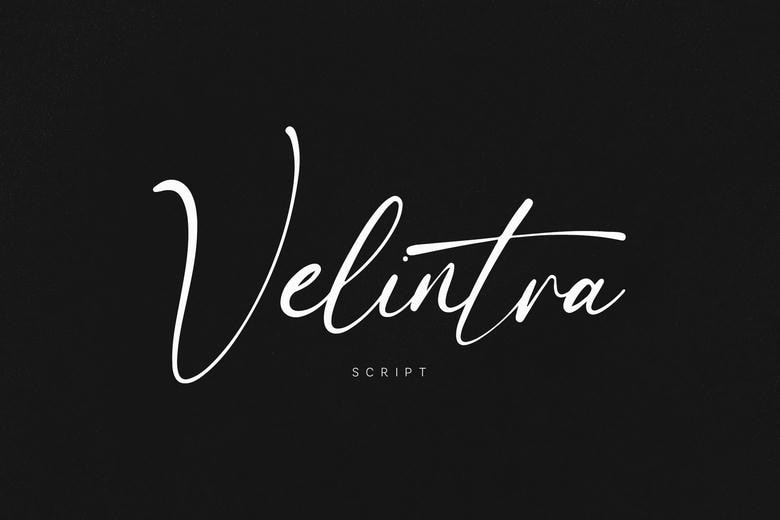
Velintra Font
Velintra is a contemporary typeface whose strokes are smooth and flowing, and the letterforms are balanced. It is created to record natural motion and has a clean and refined handwritten style that is perfect in a variety of design projects. It flows in a good way with its smooth curves and irregular rhythm, making it the best to design the eye-catching headlines, logos, and fancy compositions.
Velintra is a combination of clarity and expression to create a sophisticated and modern display of your designs. This font can be used in branding and creative layouts because of ease of customization and without losing its unique nature.
Velintra Handwritten Script Font